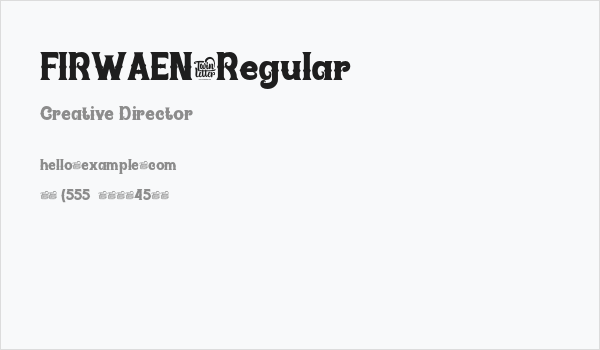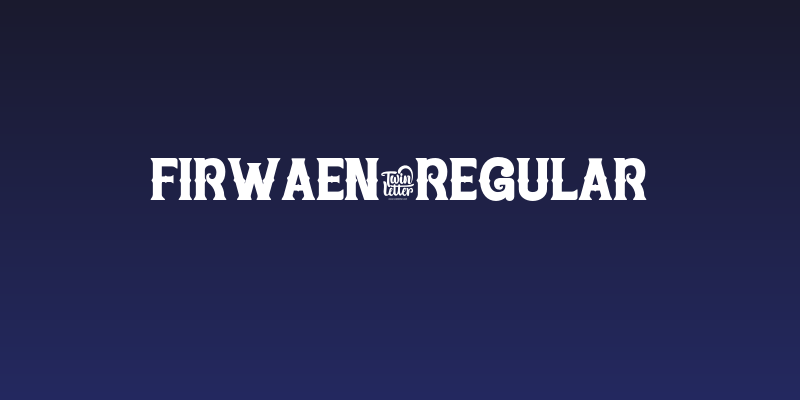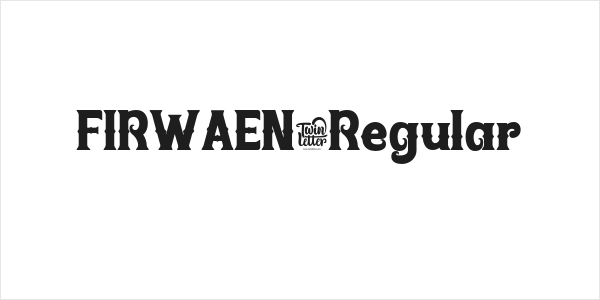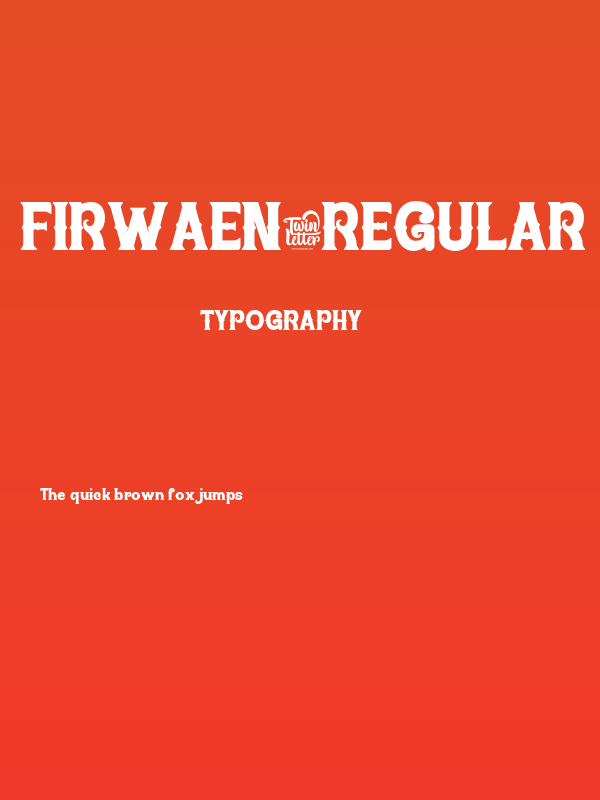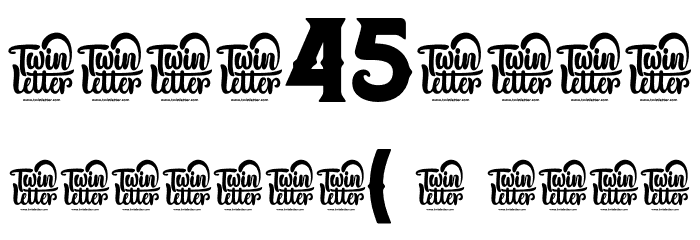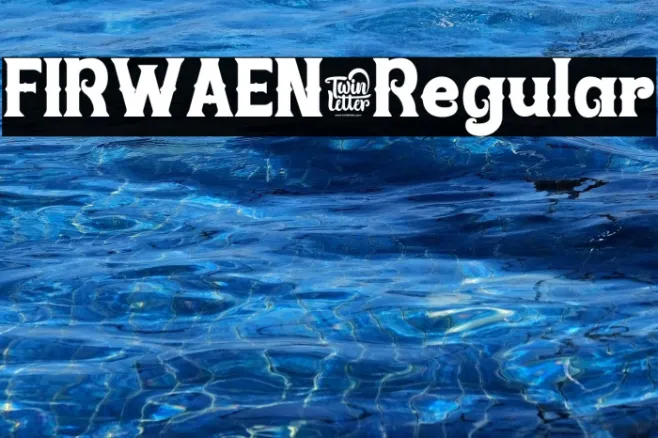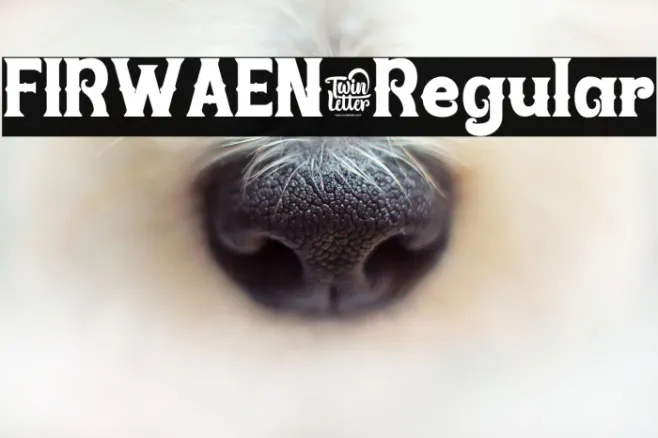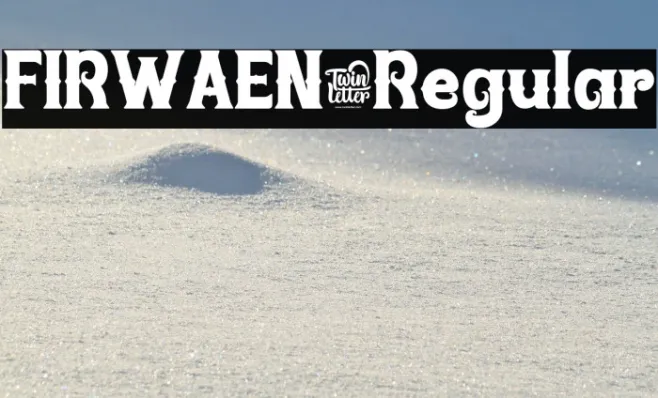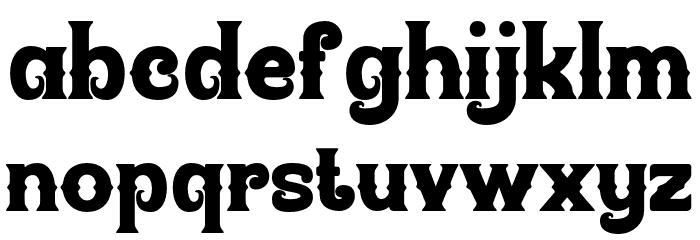
FIRWAEN-Regular Font
FIRWAEN-Regular Description
This font features a bold and decorative style with a strong presence. The uppercase letters are characterized by thick strokes and unique curves, giving them a distinct and eye-catching appearance. The lowercase letters maintain a similar boldness, with rounded edges and a playful design. The numbers are equally bold, ensuring they stand out in any context. The special characters are designed to complement the overall aesthetic, adding a touch of flair. This font is perfect for projects that require a strong visual impact, such as posters, logos, and headlines.